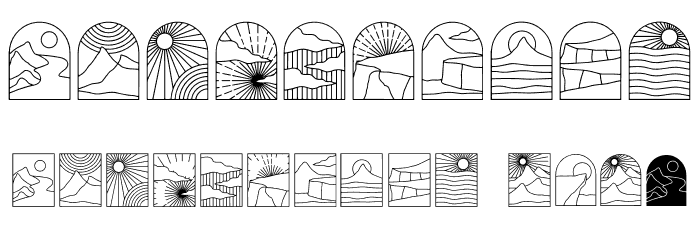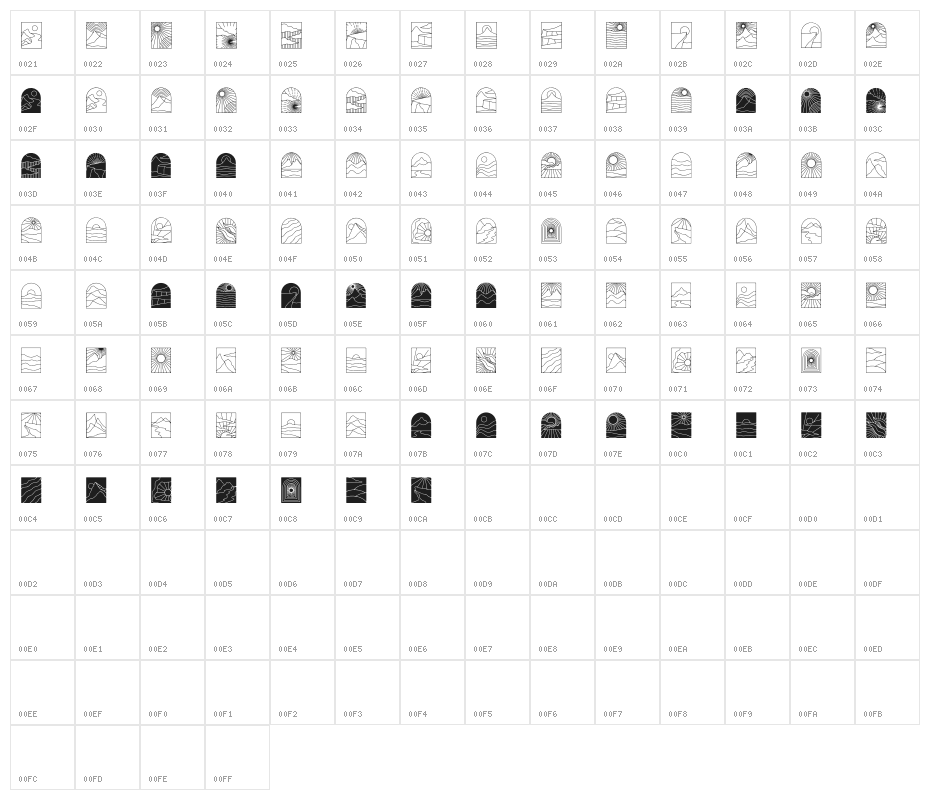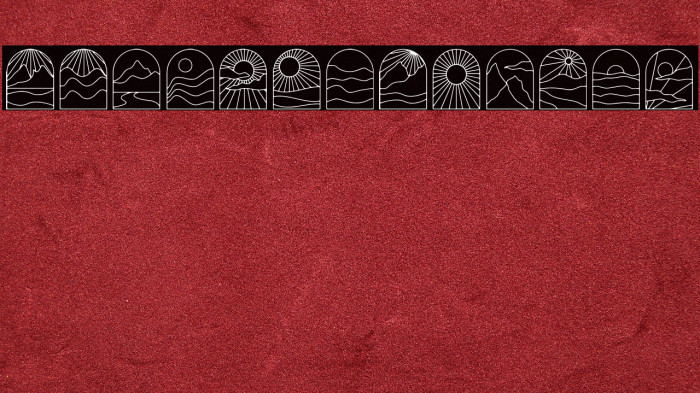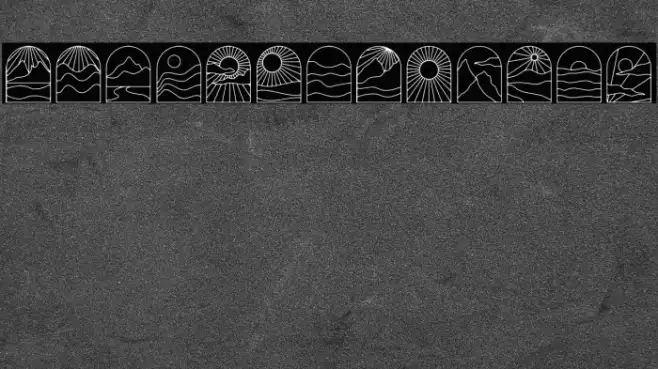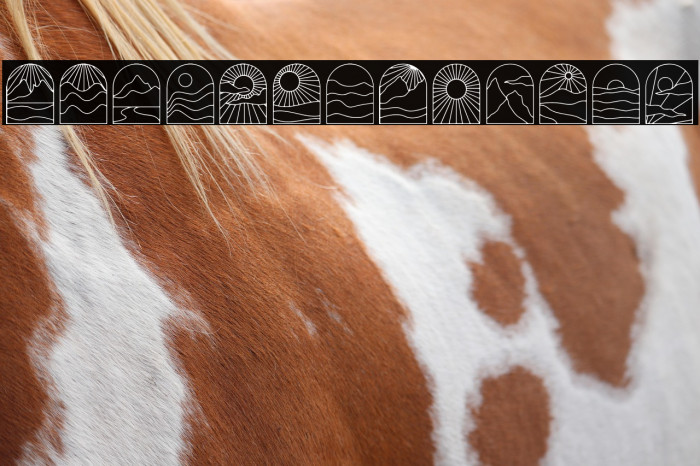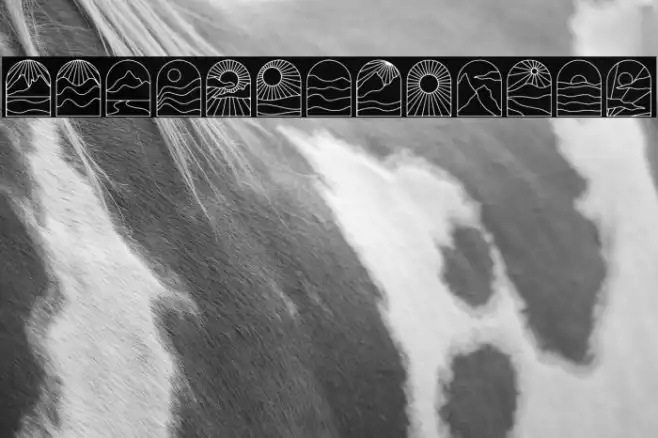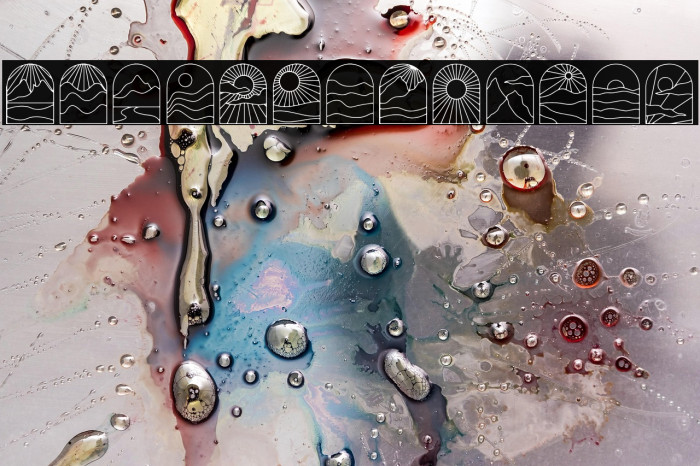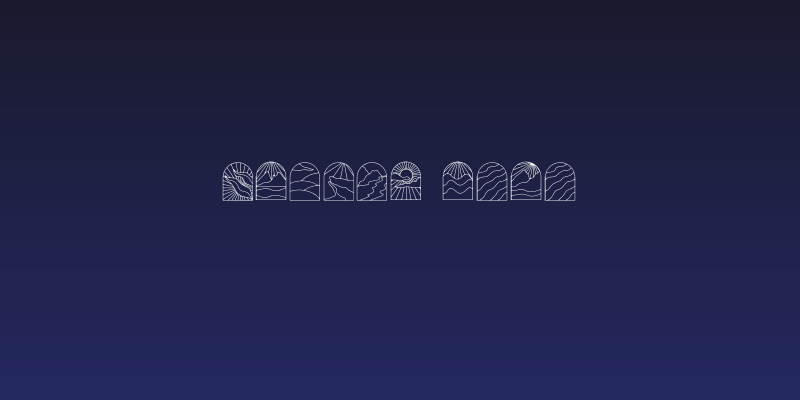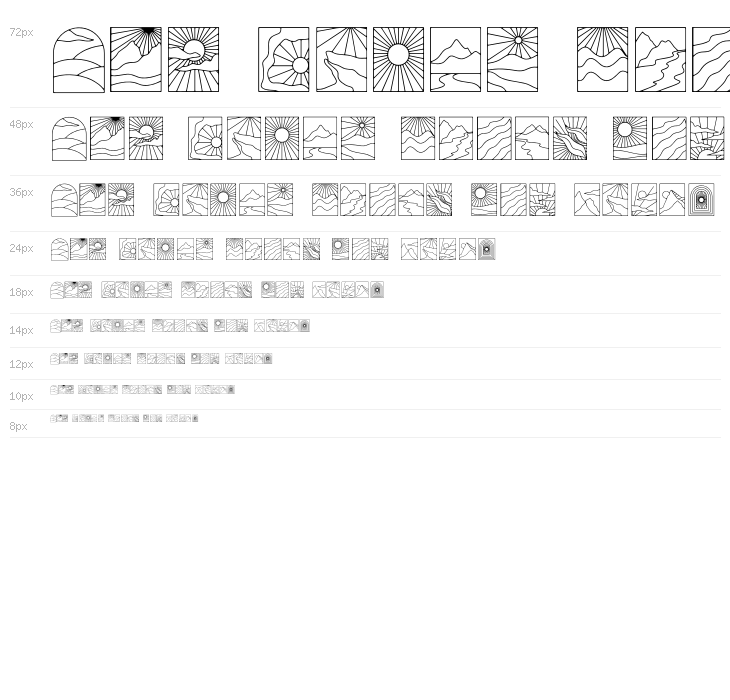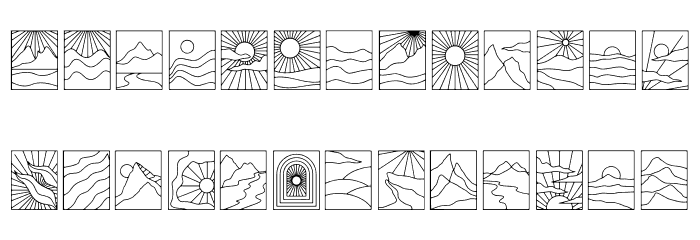
Nature Boho Font
Nature Boho Description
A decorative display set featuring minimalist, hand-drawn line art of nature scenes such as mountains, sunrises, and landscapes, presented in both arched and rectangular frames. The style is clean, with consistent line weight and a bohemian, organic aesthetic.
| Overall Style | Decorative, Boho, Minimalist, Modern |
| Use Case | Decorative elements, branding, posters, digital content |
| Proposed Projects | Wall art, branding for eco-friendly or wellness brands, packaging, greeting cards, social media graphics. |